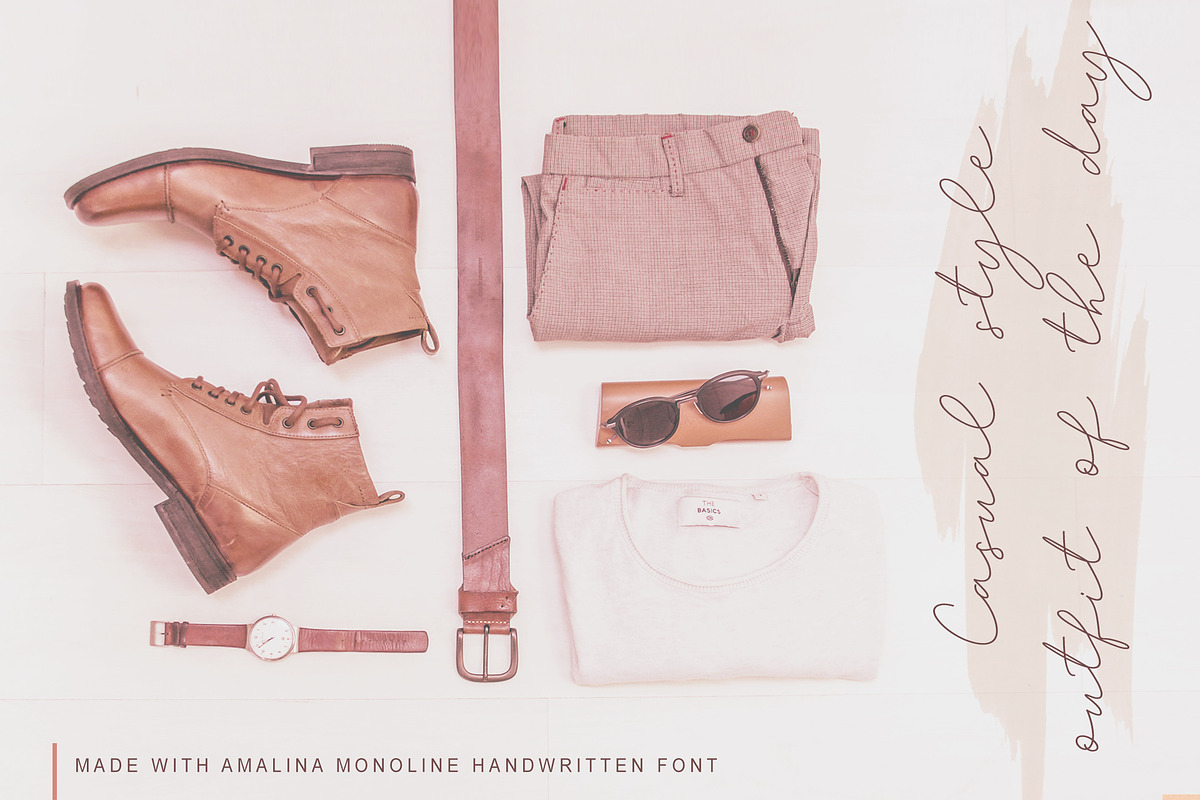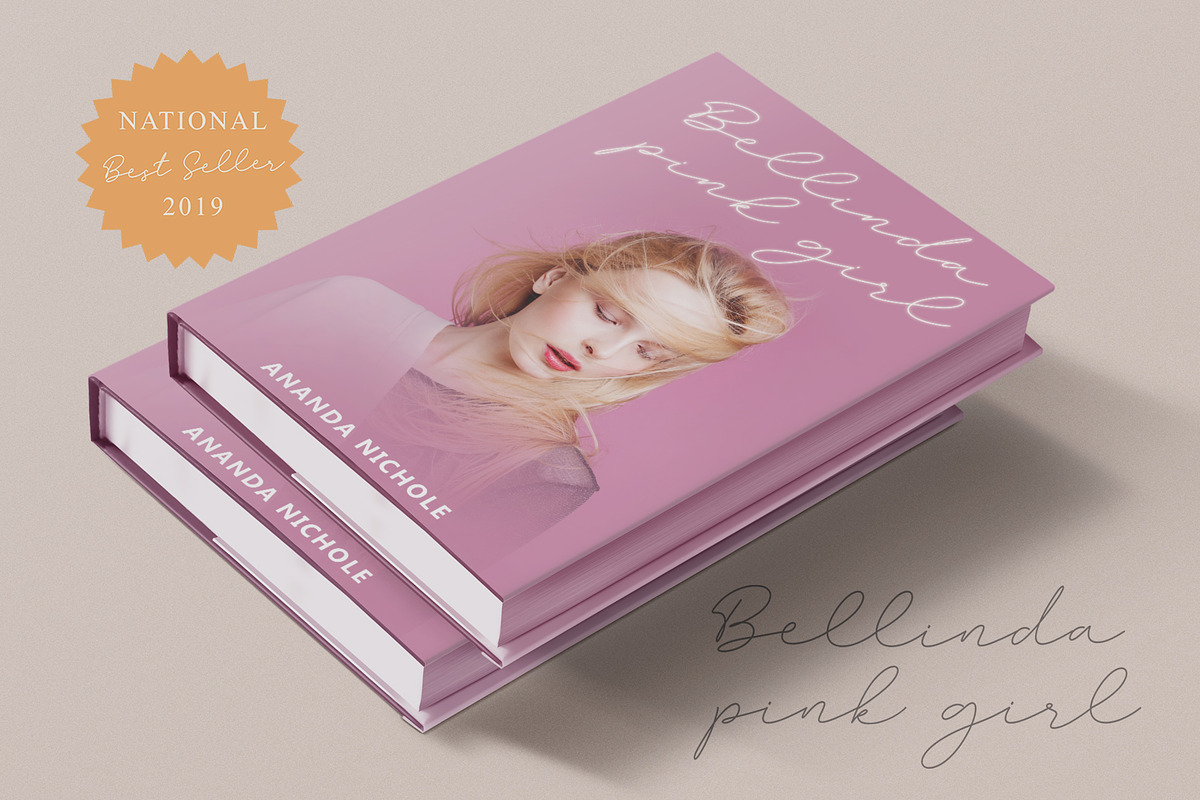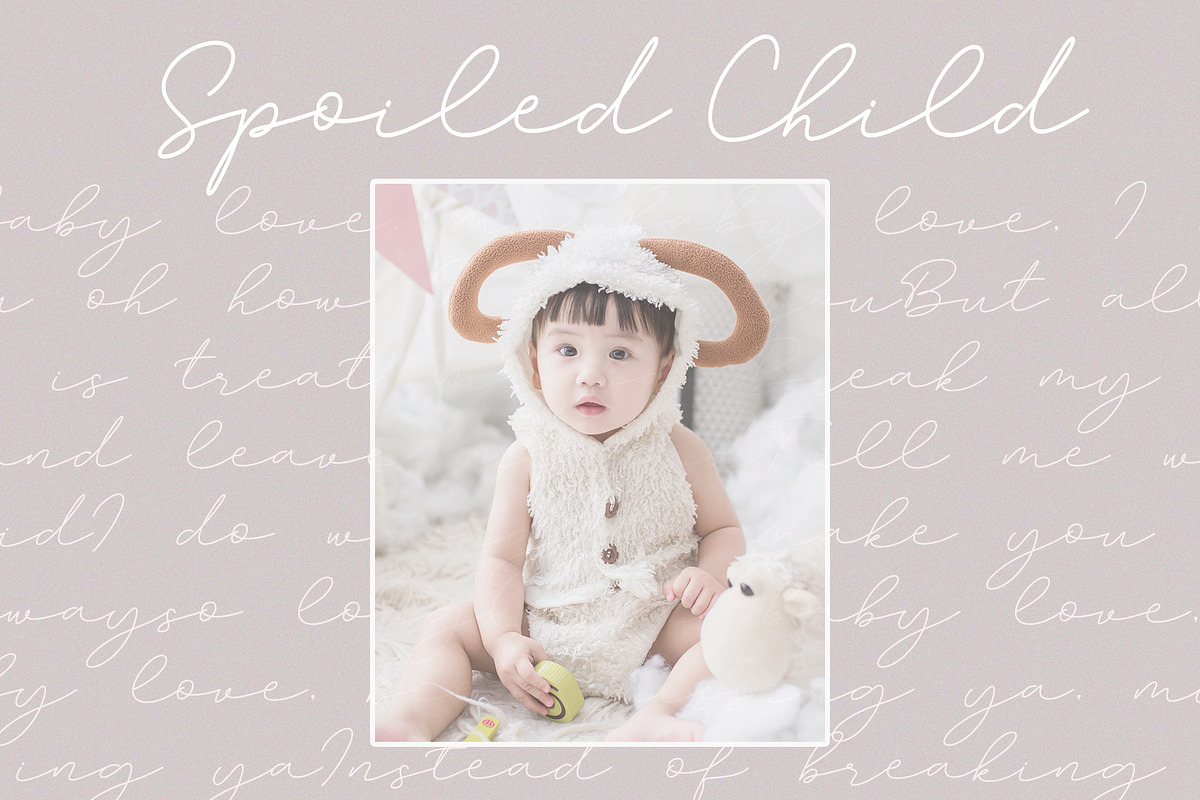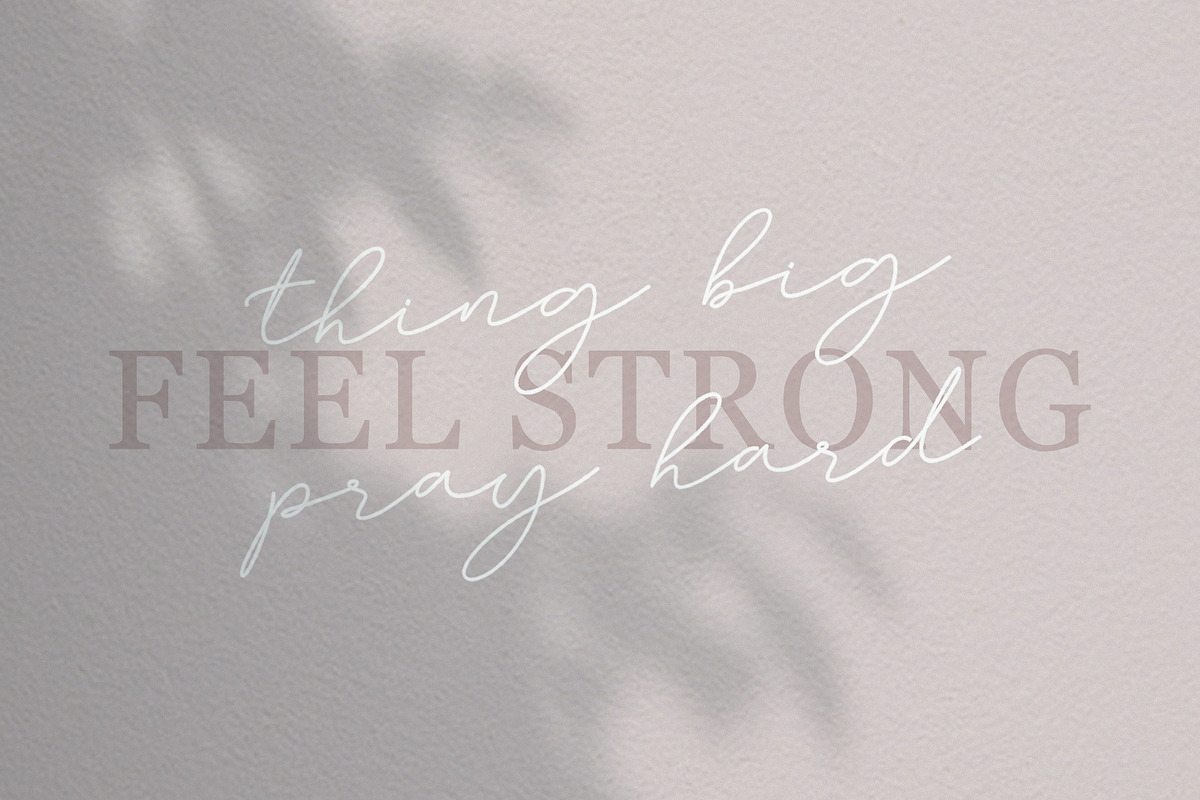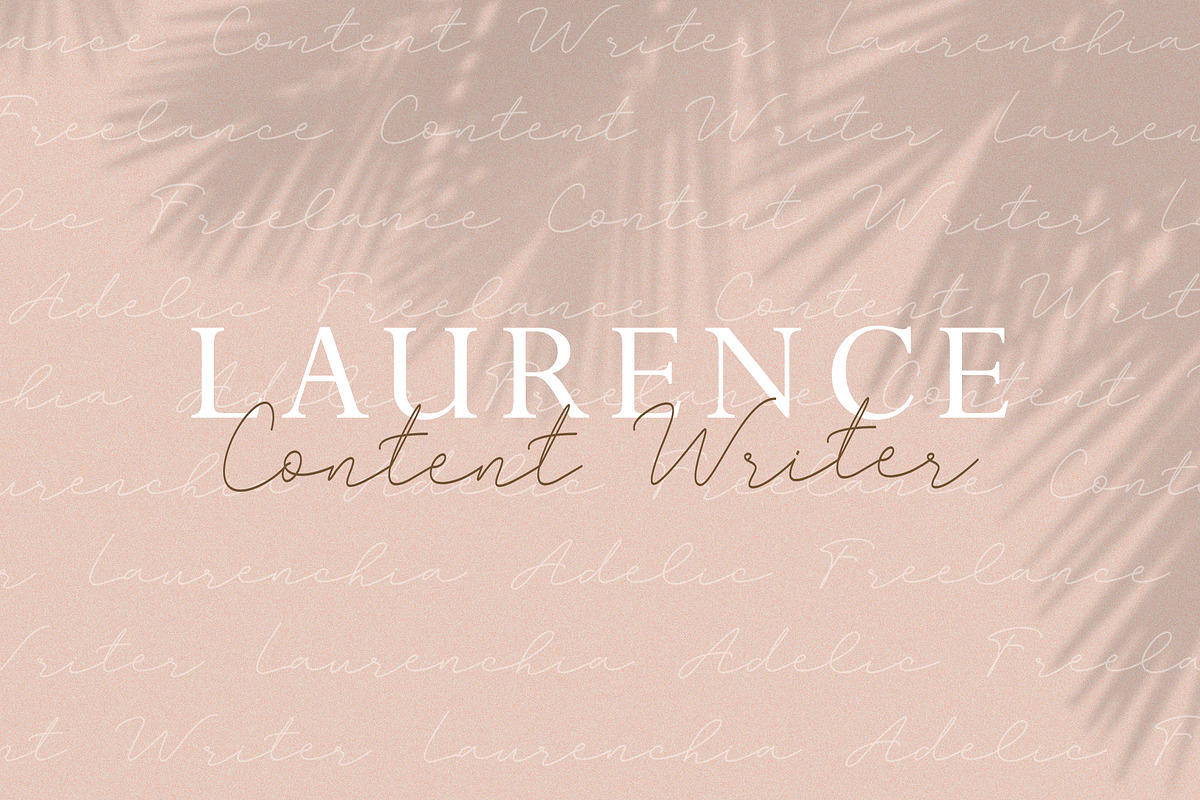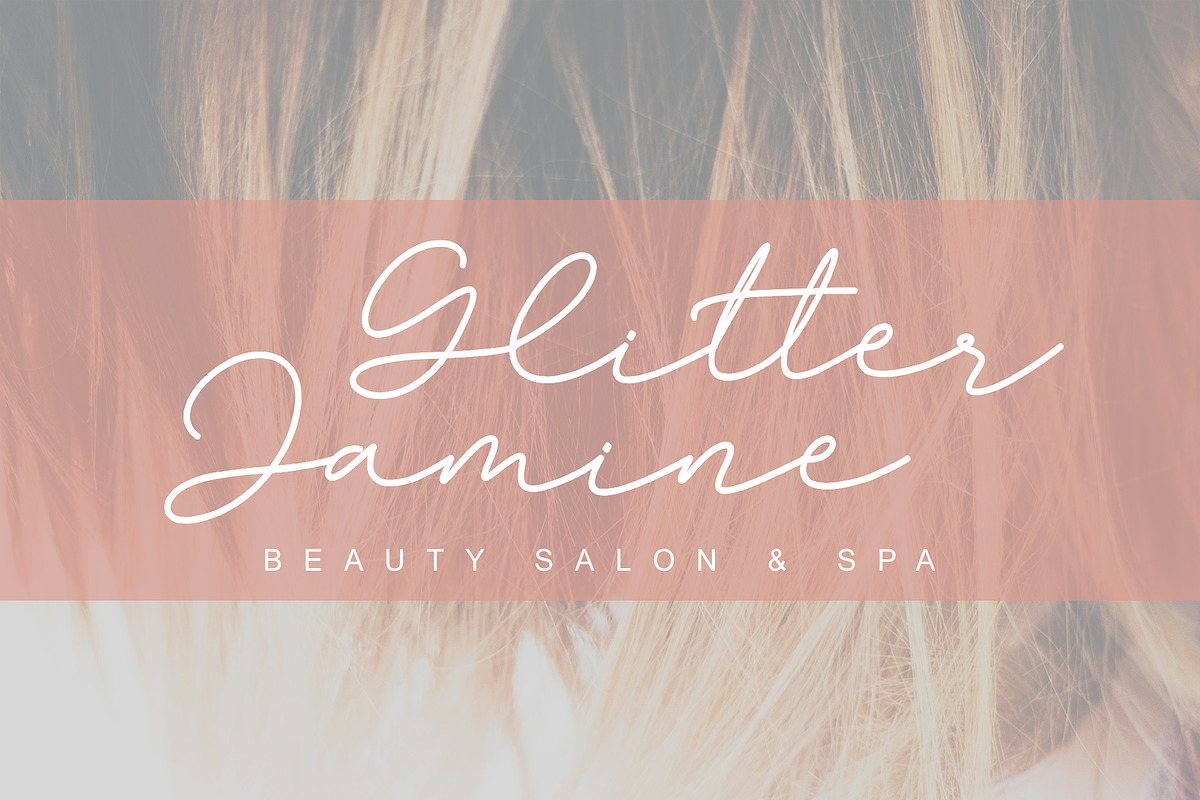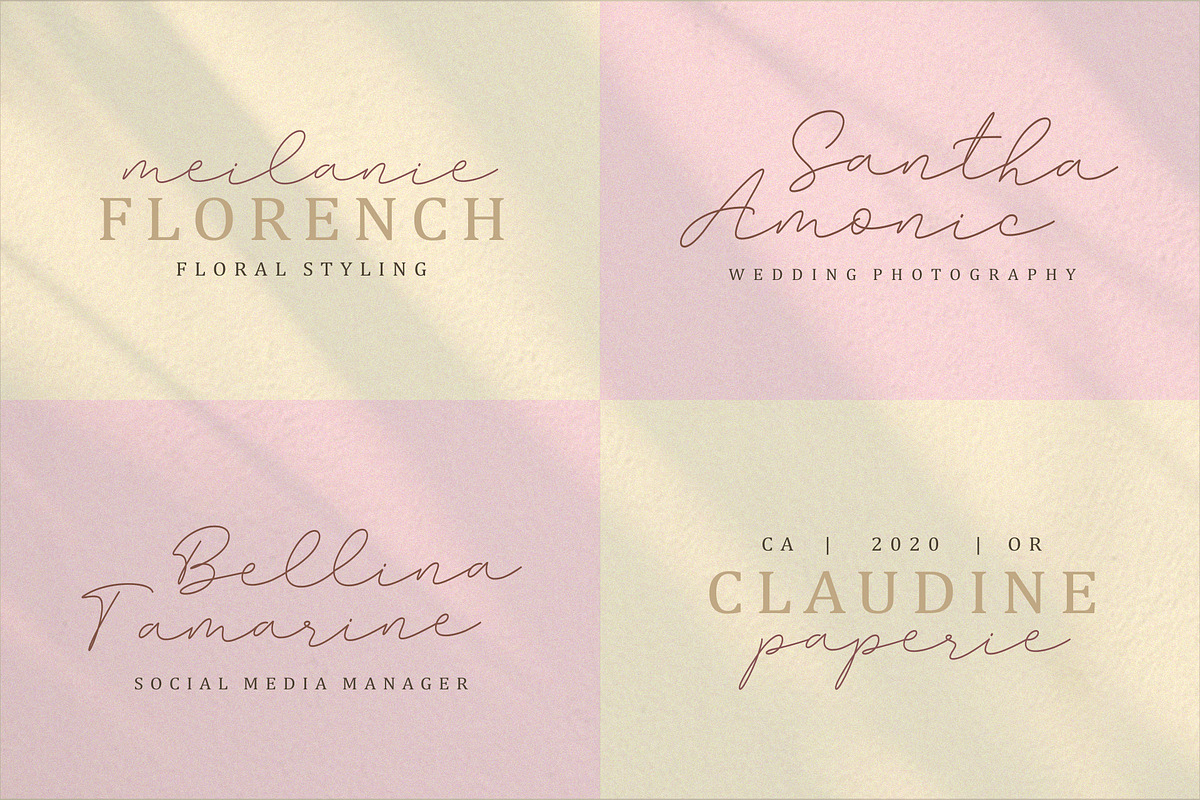
Amalina Script style - a new modern & fresh script with a handwritten and script style make this font looks elegant, natural, stylish and perfect for any awesome projects that need handwriting taste.
Amalina would perfect for photography, watermark, social media posts, advertisements, logos & branding, invitation, product designs, label, stationery, wedding designs, product packaging, special events or anything that need handwriting taste.